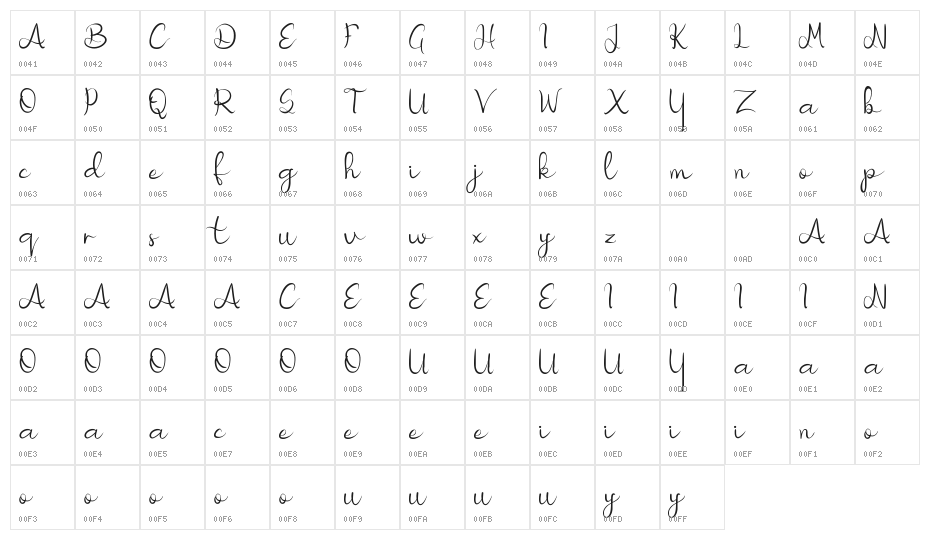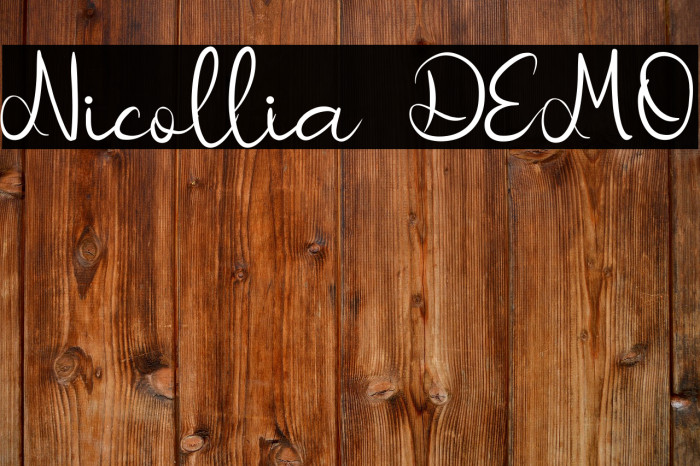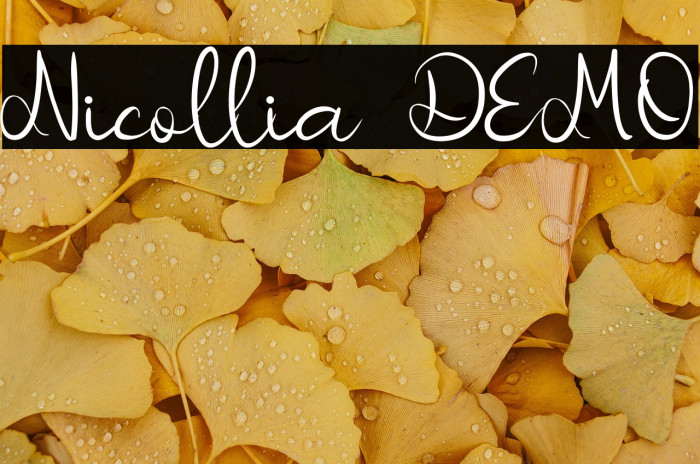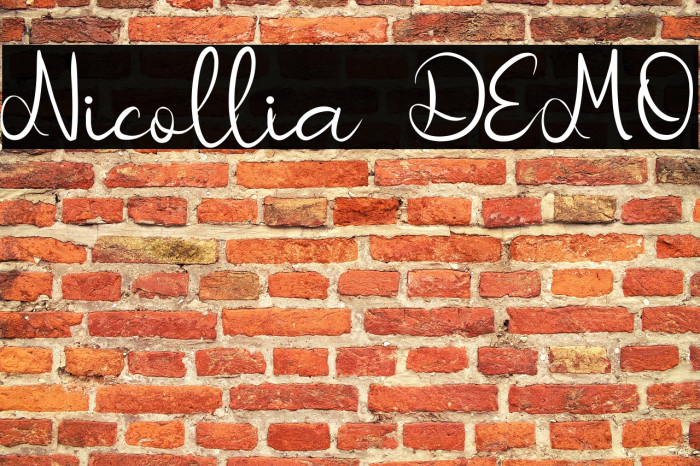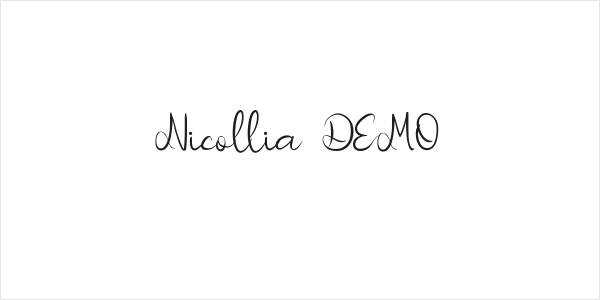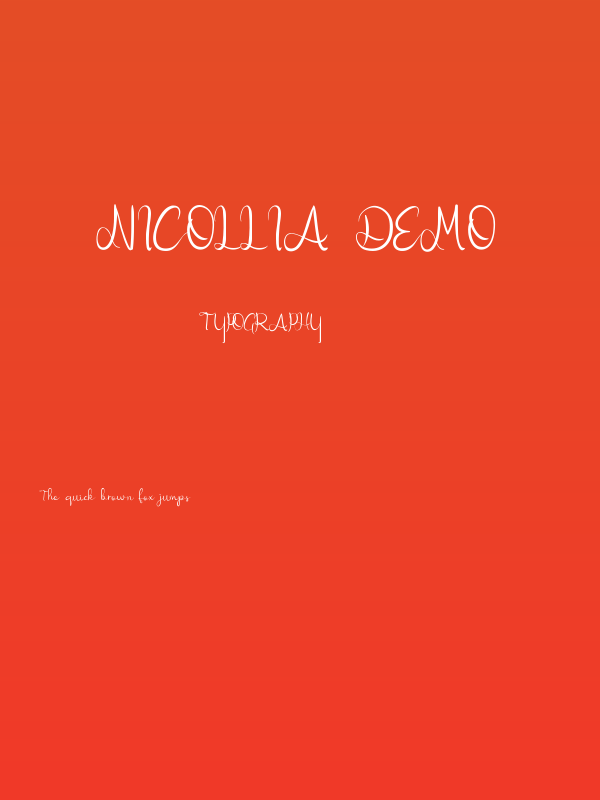
Nicollia DEMO Font
Nicollia DEMO Description
This font features an elegant and flowing script style, characterized by its smooth, cursive strokes and graceful curves. The uppercase letters are distinct with a sophisticated flair, while the lowercase letters maintain a consistent flow, enhancing readability. The font exhibits a harmonious balance between thick and thin lines, adding a touch of refinement. Its artistic nature makes it suitable for creative and decorative purposes, offering a sense of elegance and style. The characters are well-spaced, ensuring clarity and legibility, even in smaller sizes.
| Overall Style | Elegant, Decorative |
| Proposed Projects | Ideal for wedding invitations, greeting cards, branding, and elegant logo designs. |